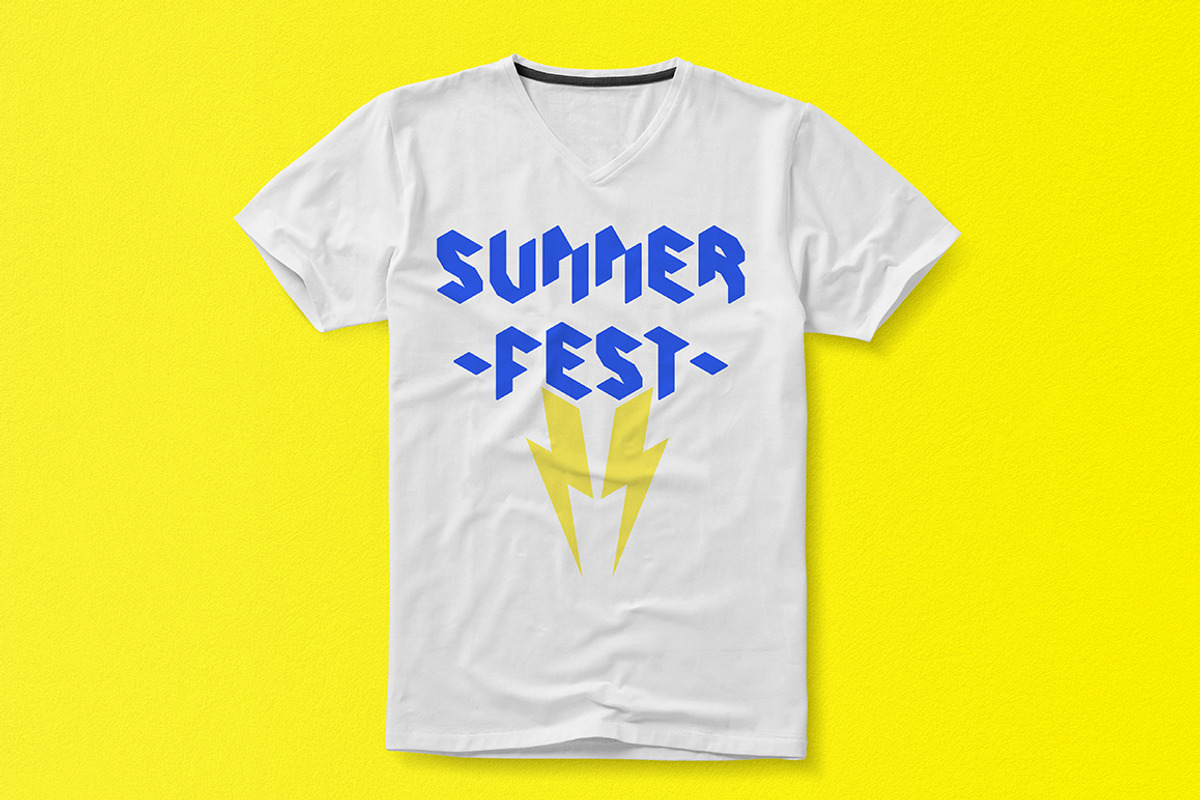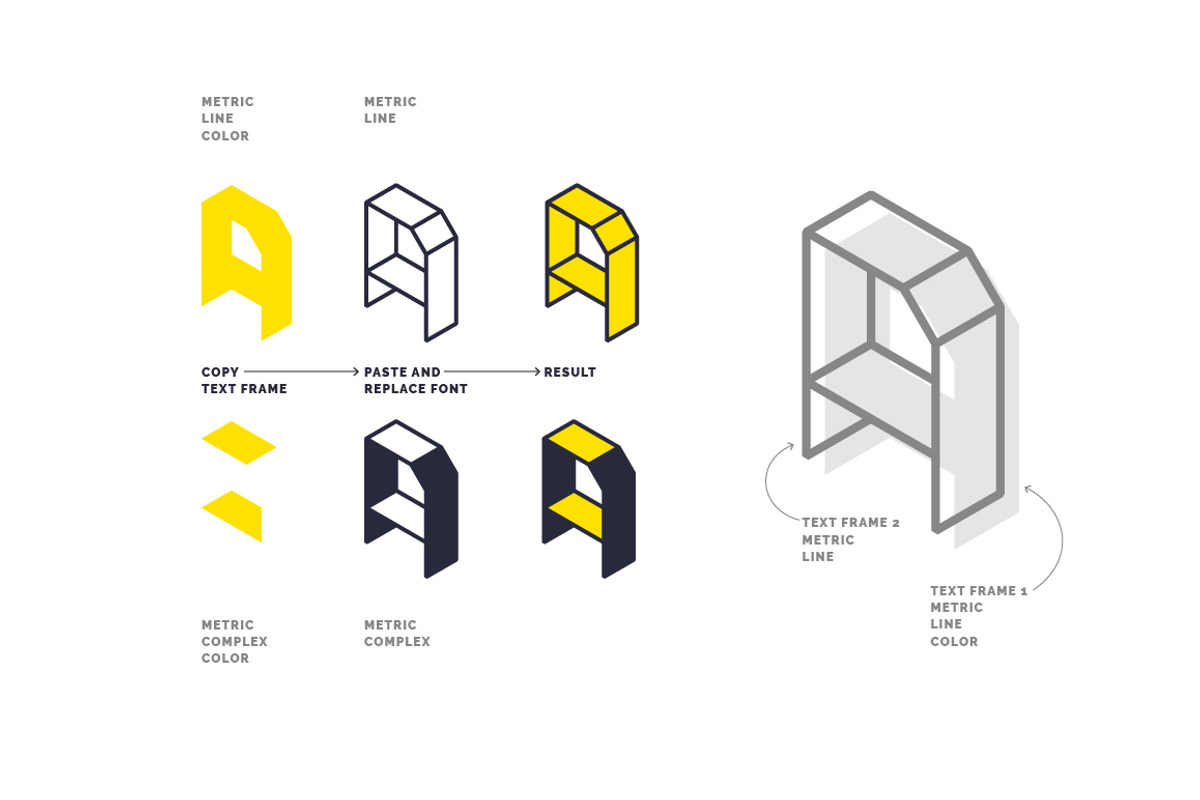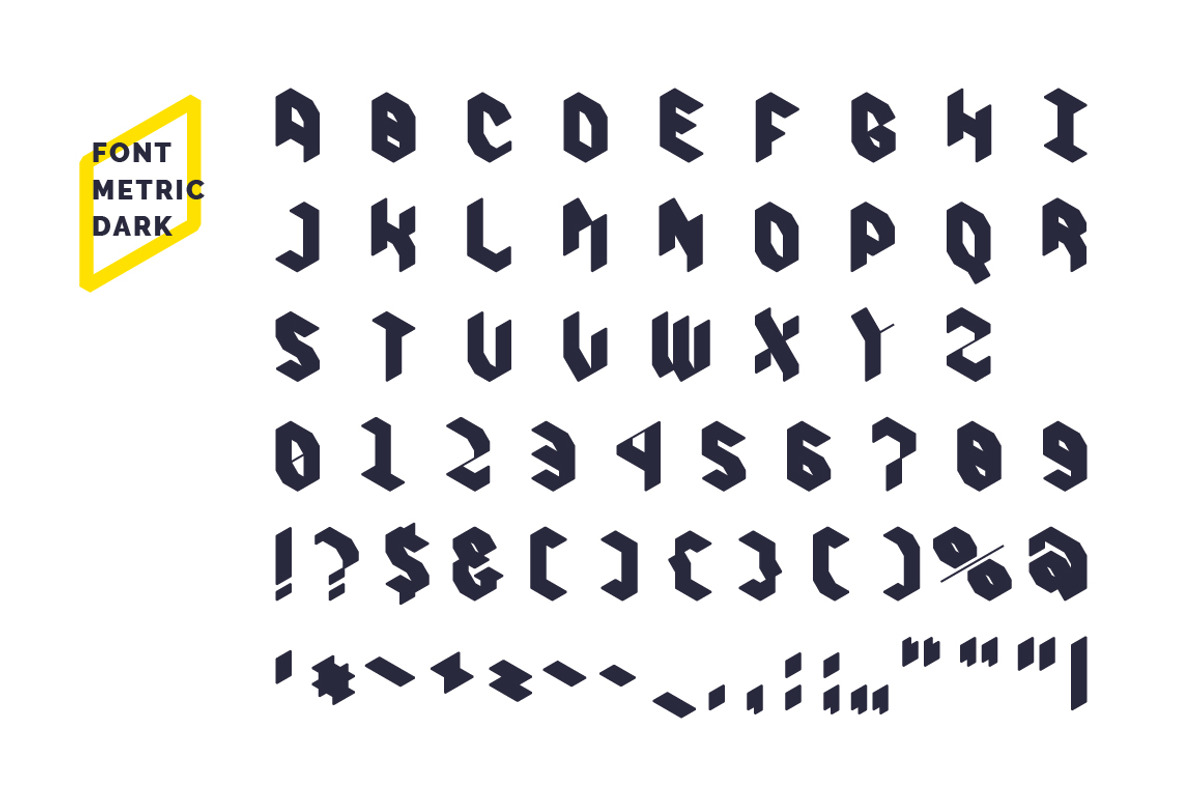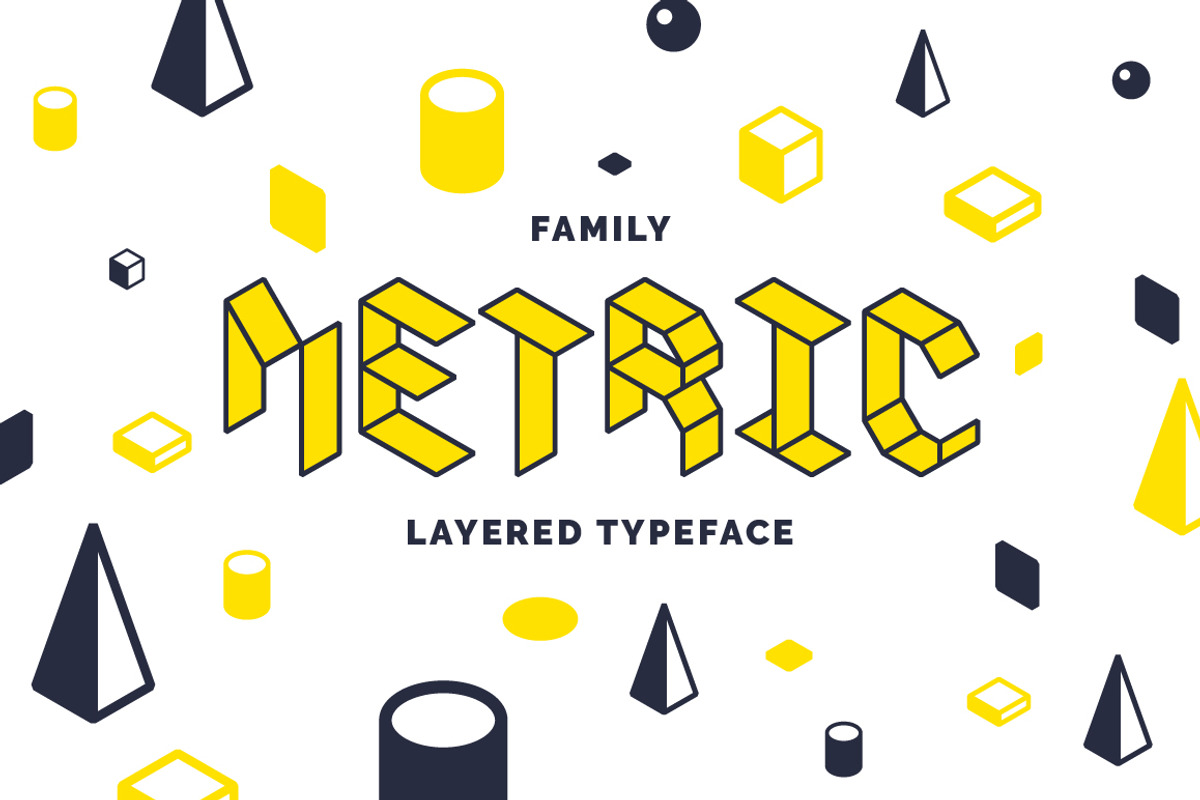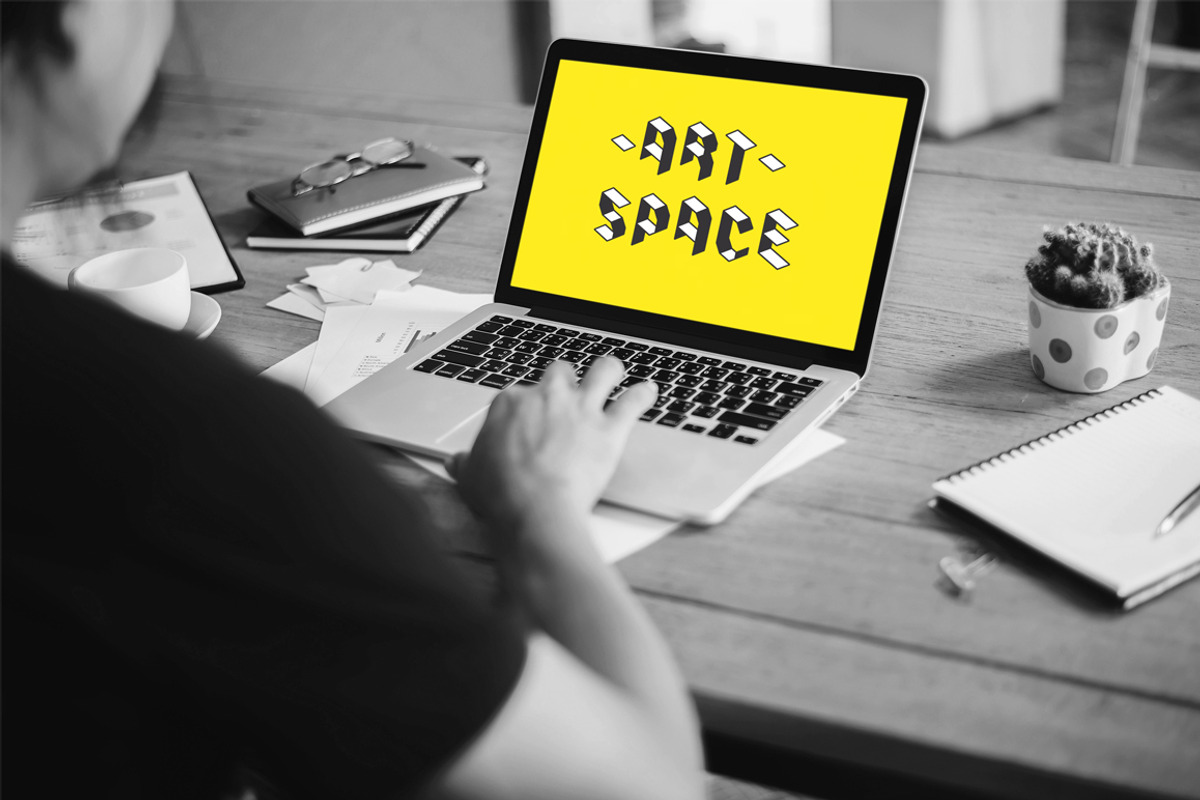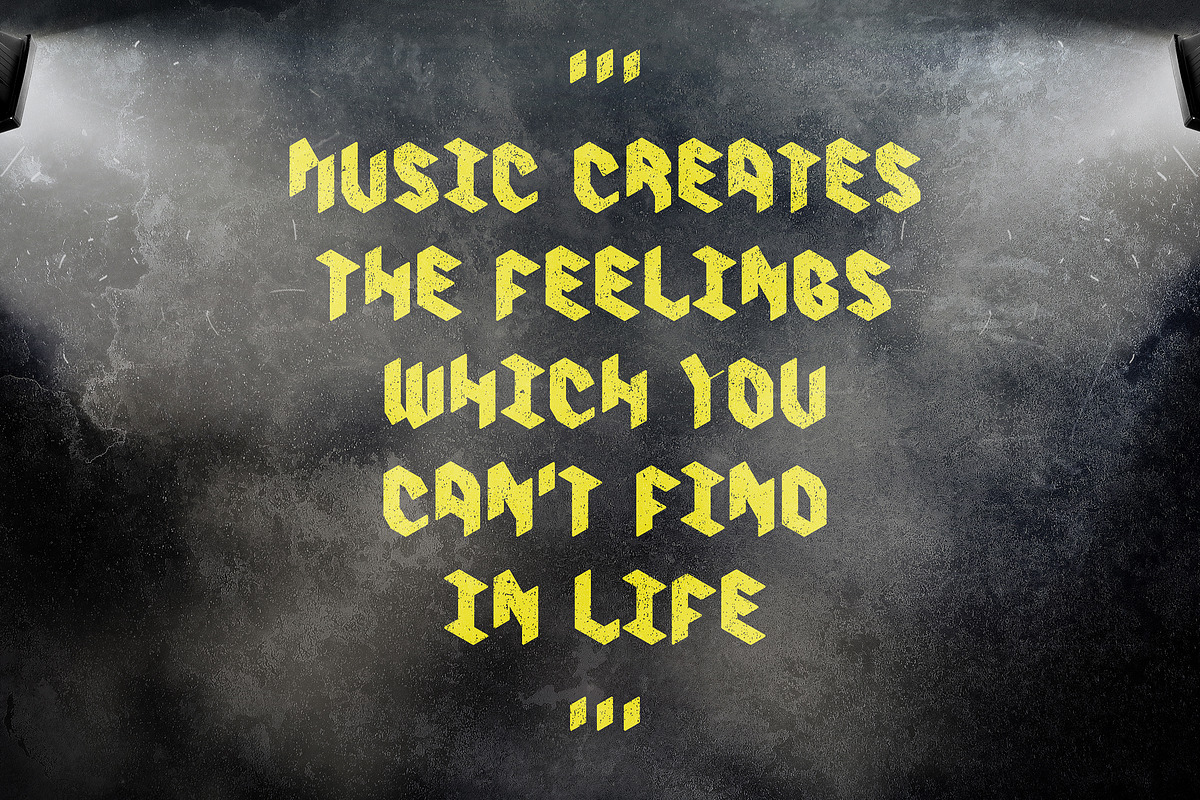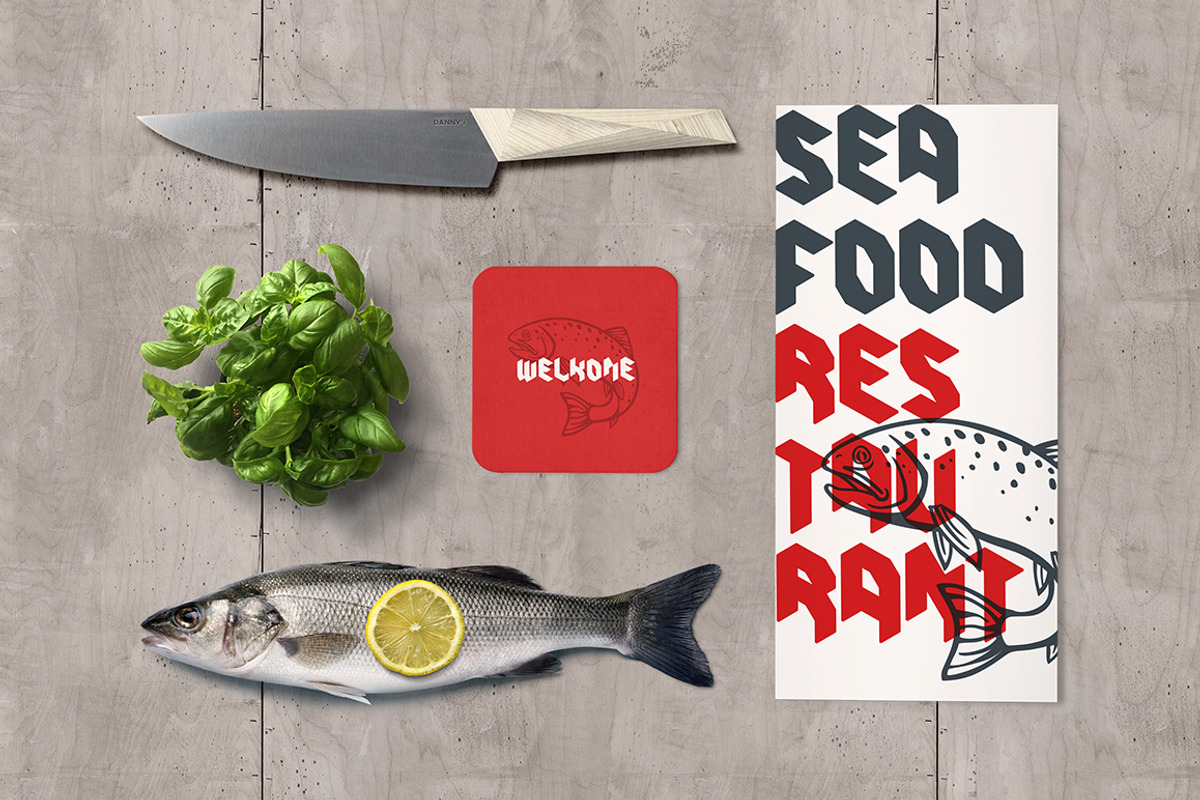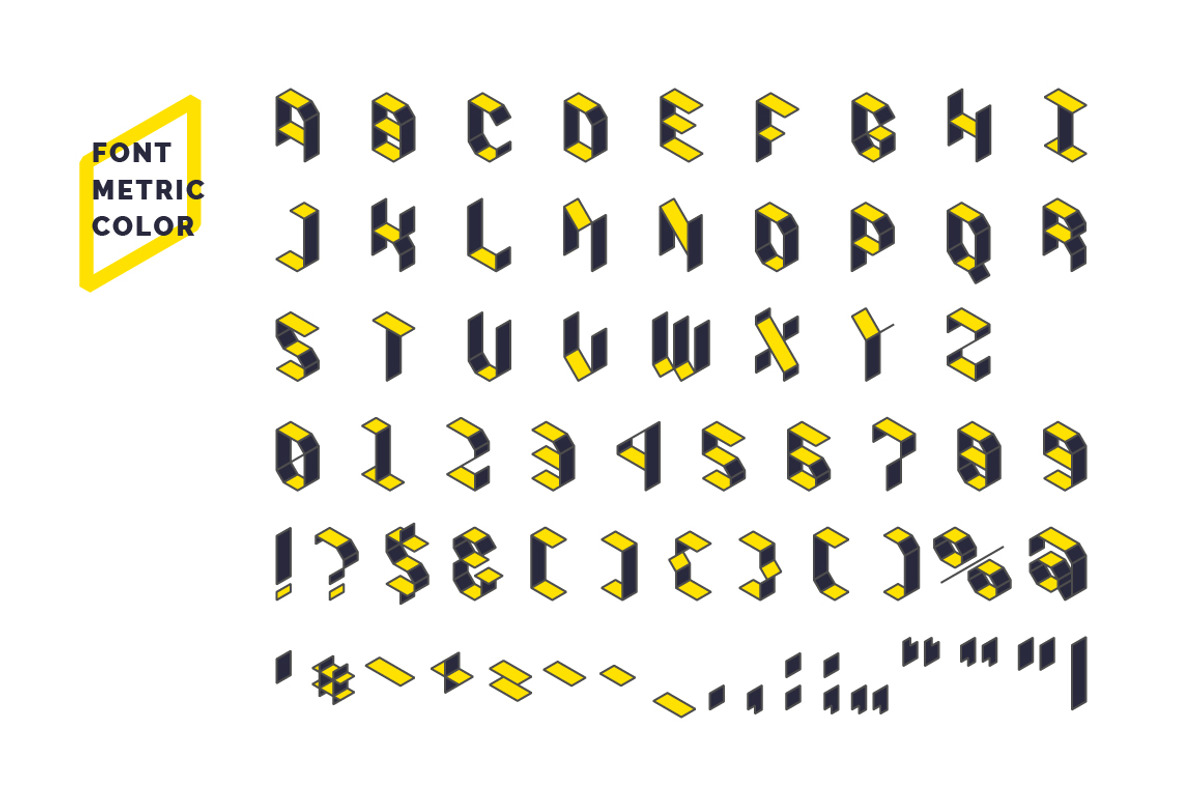
Metric display fonts
The font Metric is a layered family type. You can choose one of the options to use a multi font:
Metric line + Metric line color
Metric complex + Metric complex color
Using simple copy and overlay text frames, you will get a colored font!
The font Metric are built on the basis of isometric projection. This font will look good in headlines of magazines, book covers, logos, t-shirts and posters. Metric will help you to fulfill your creative ideas!